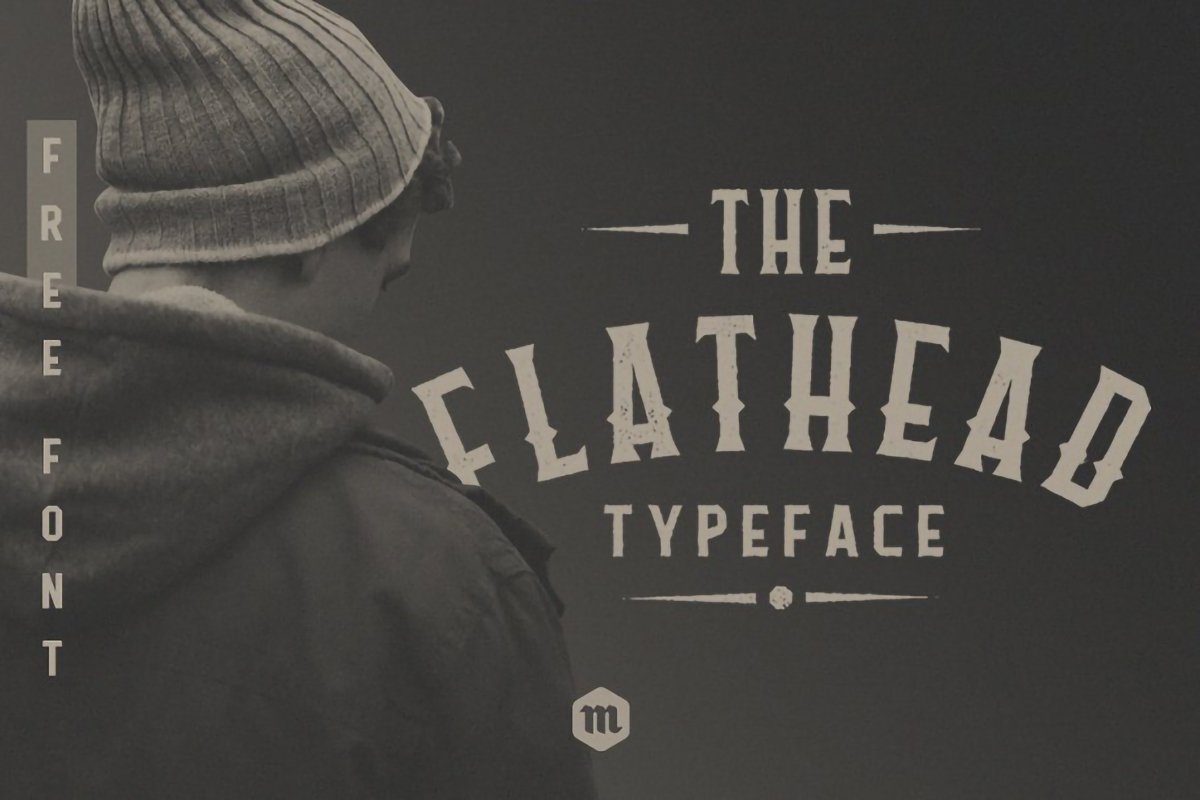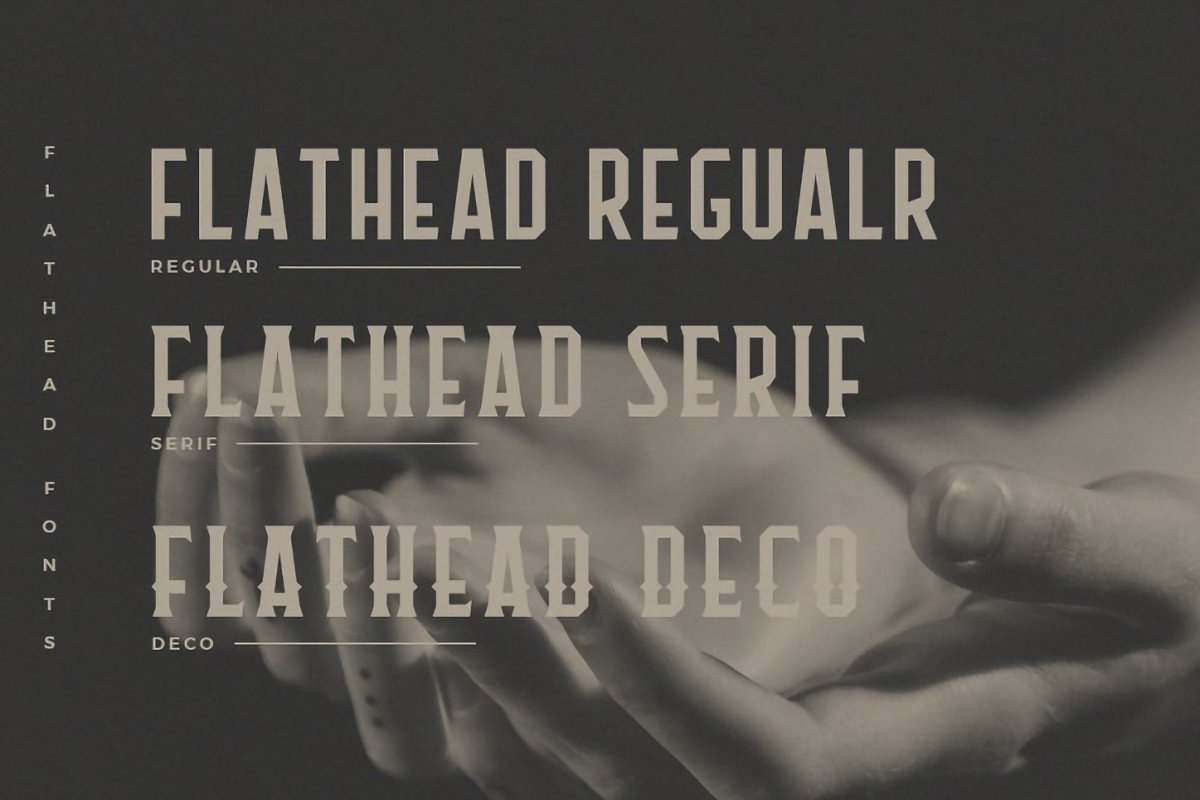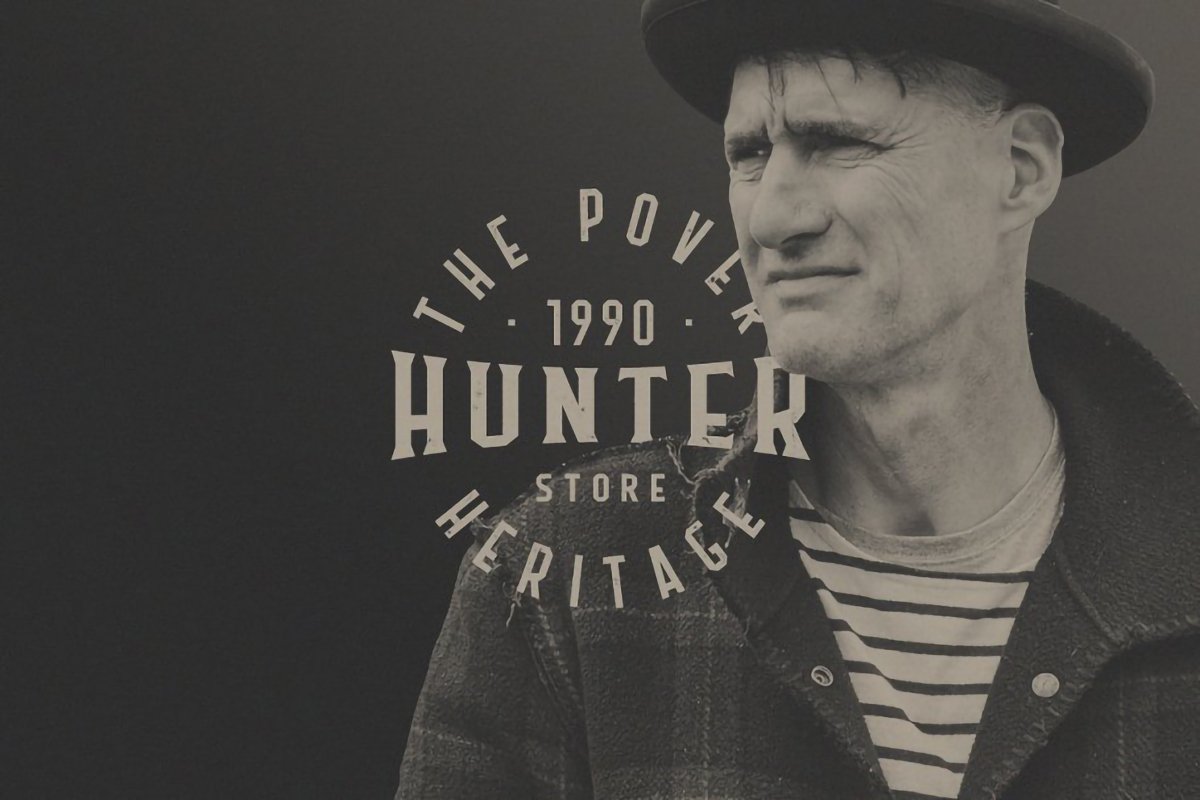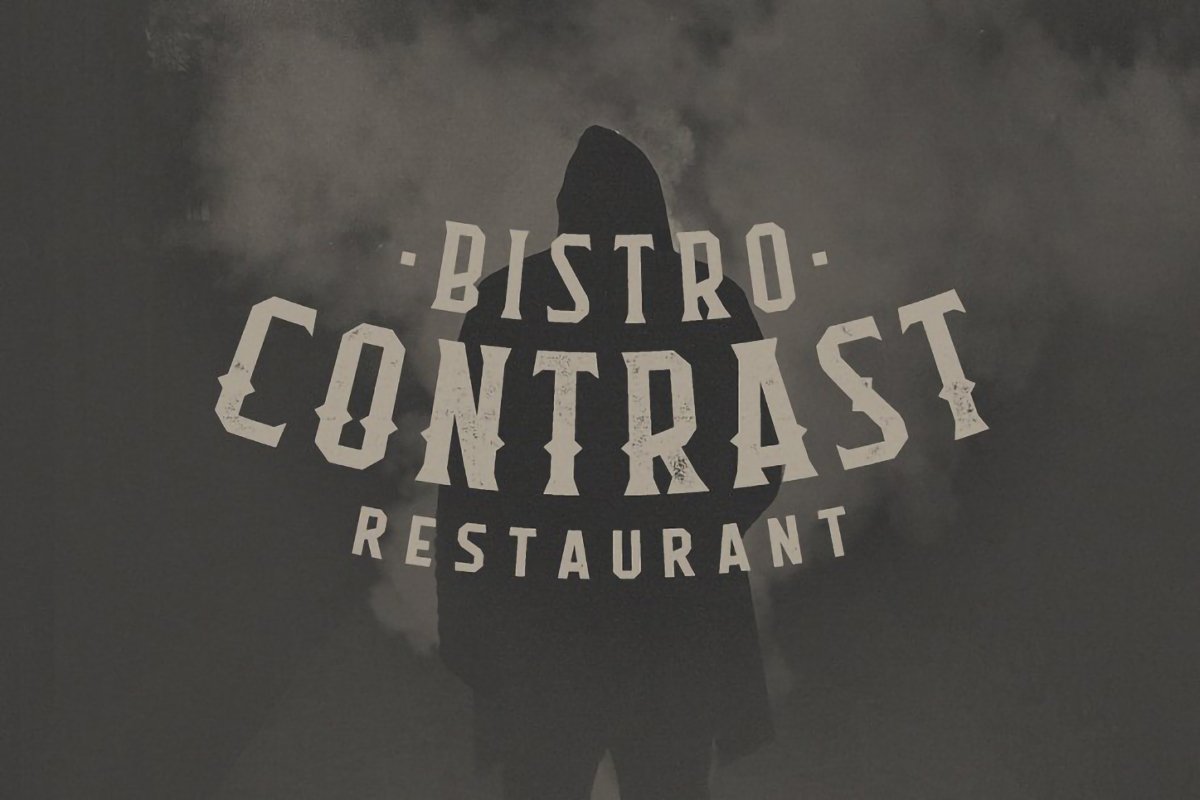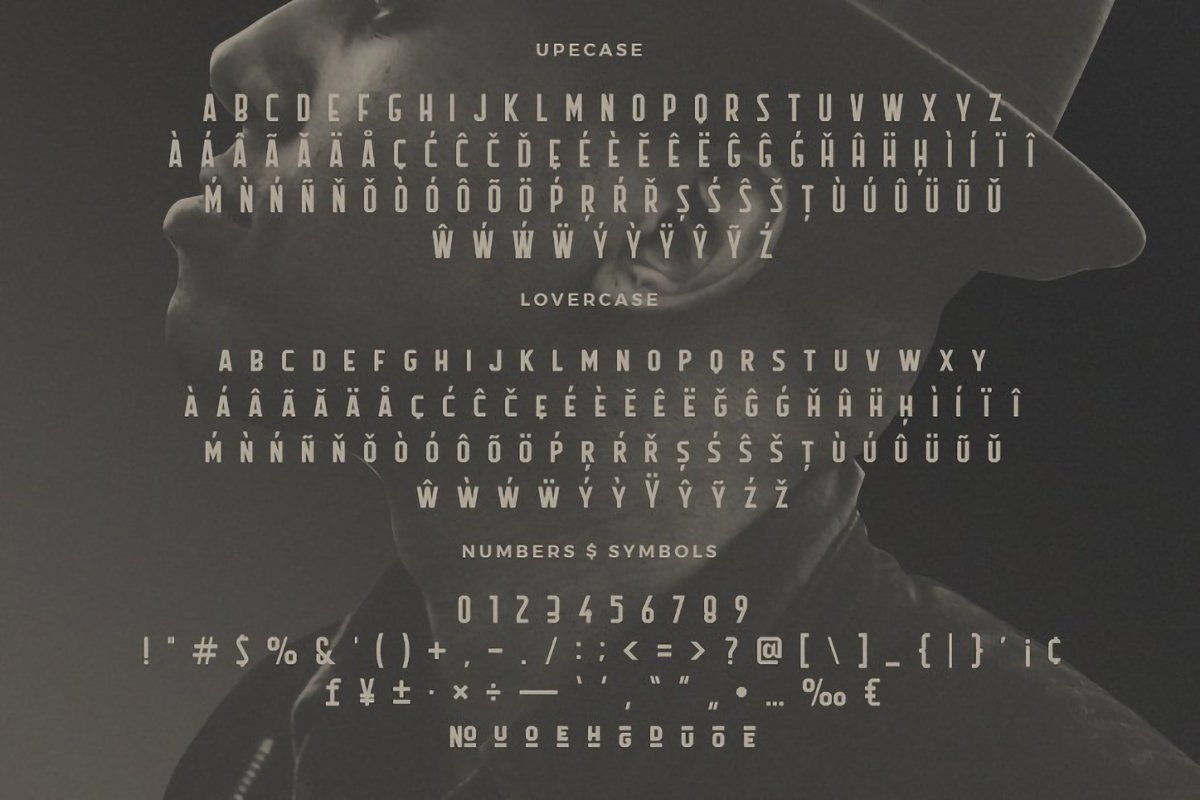
Flathead Typeface Free Demo is one that you can get out of Flathead family. This family comes with 3 fonts with a mono weight and different decorations. Inspired by American western culture and tattoos, Flathead is perfect for vintage designs. It is also suitable for any project that requires an old western feel as the core design elements. Hence, this demo font goes well on the logo, greeting card, poster, etc.